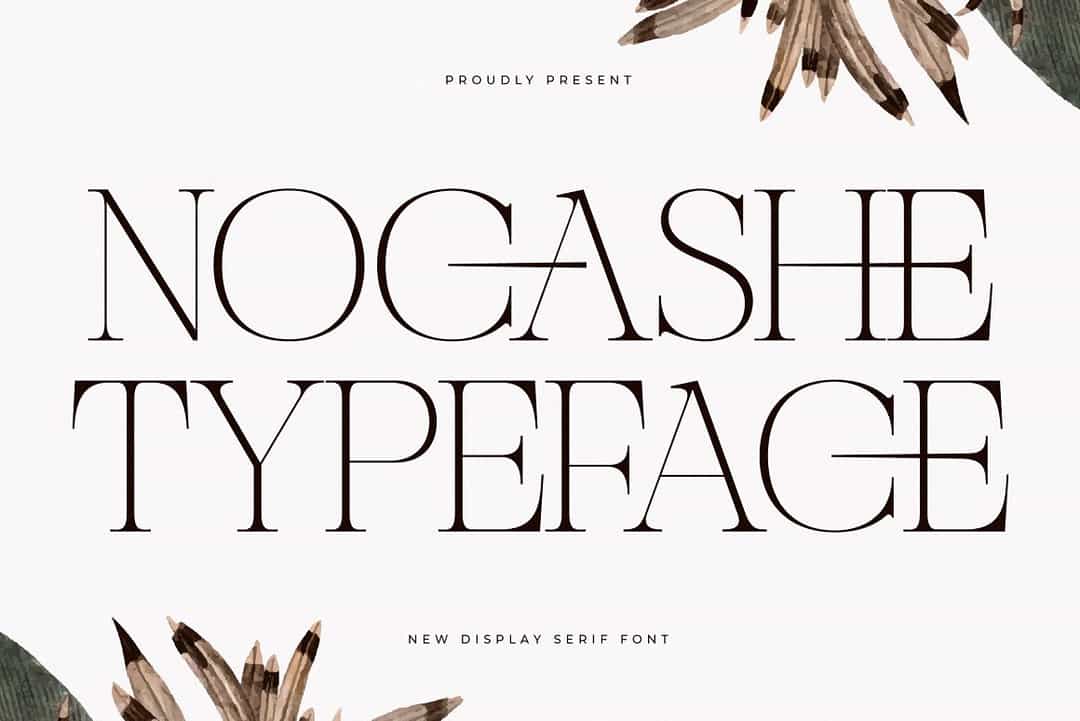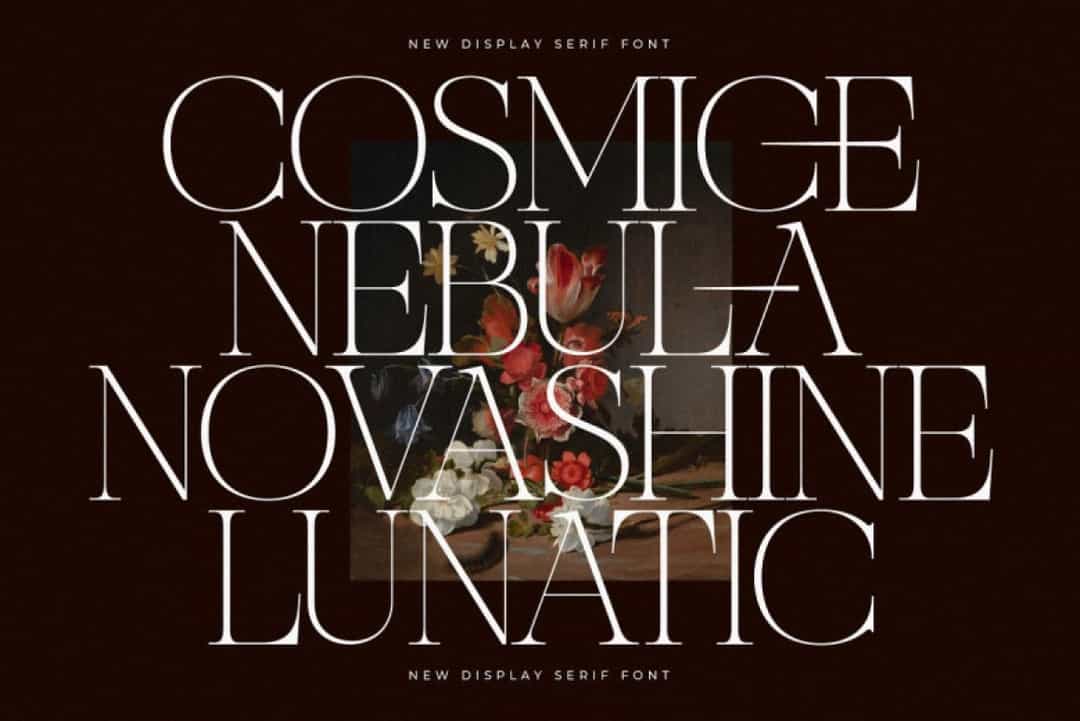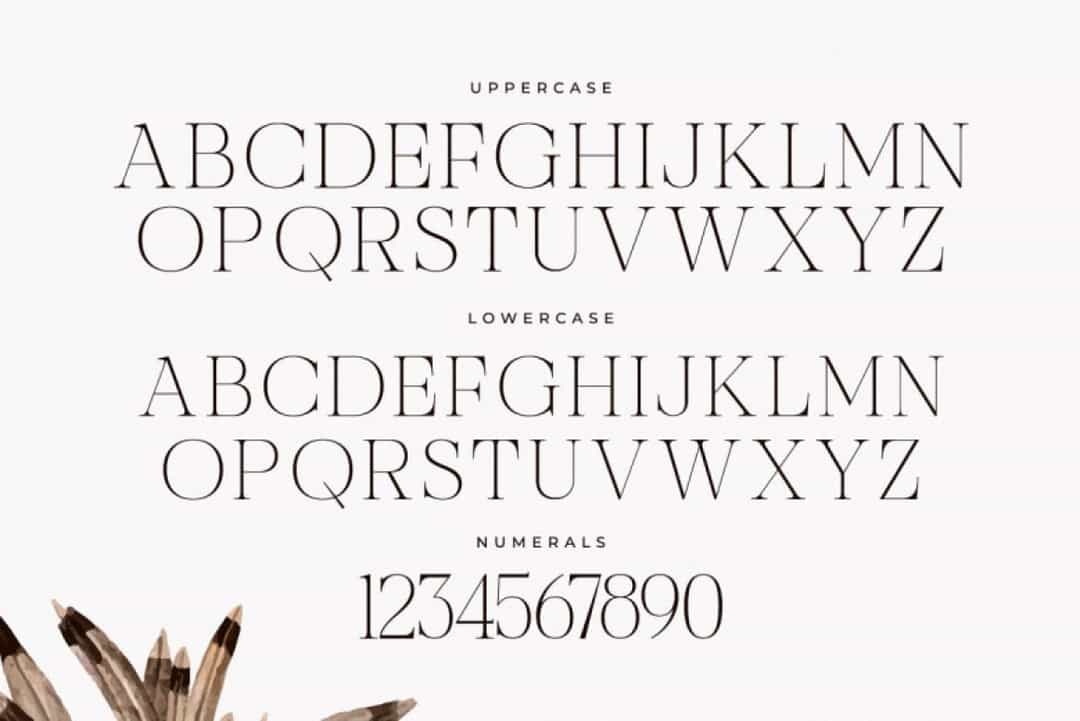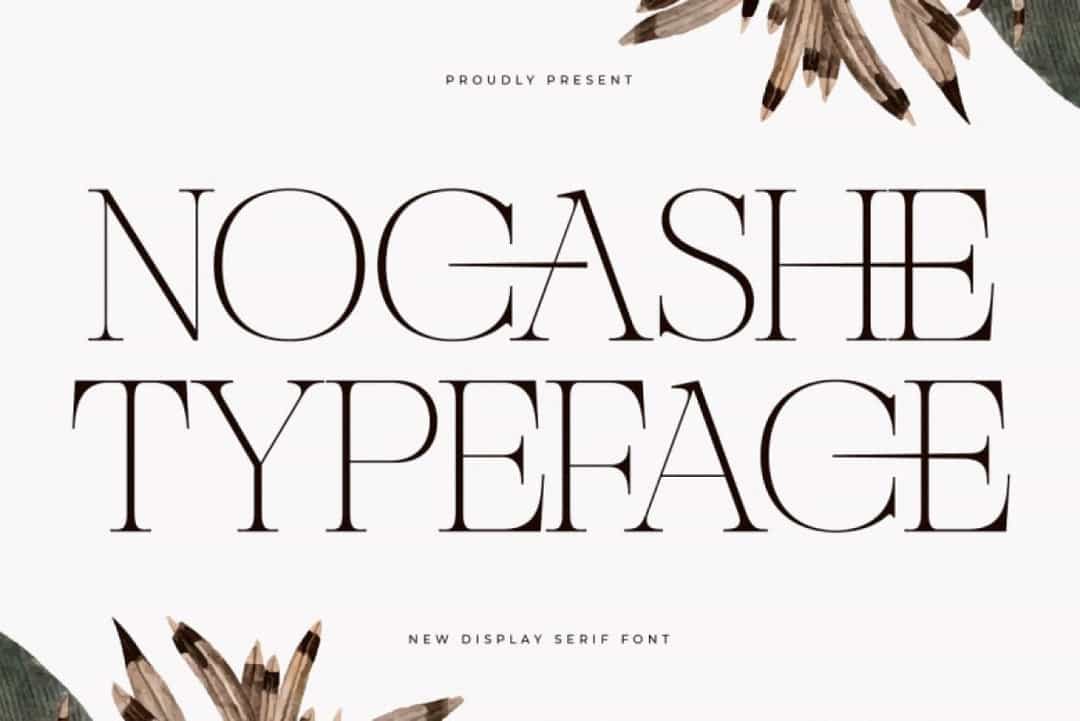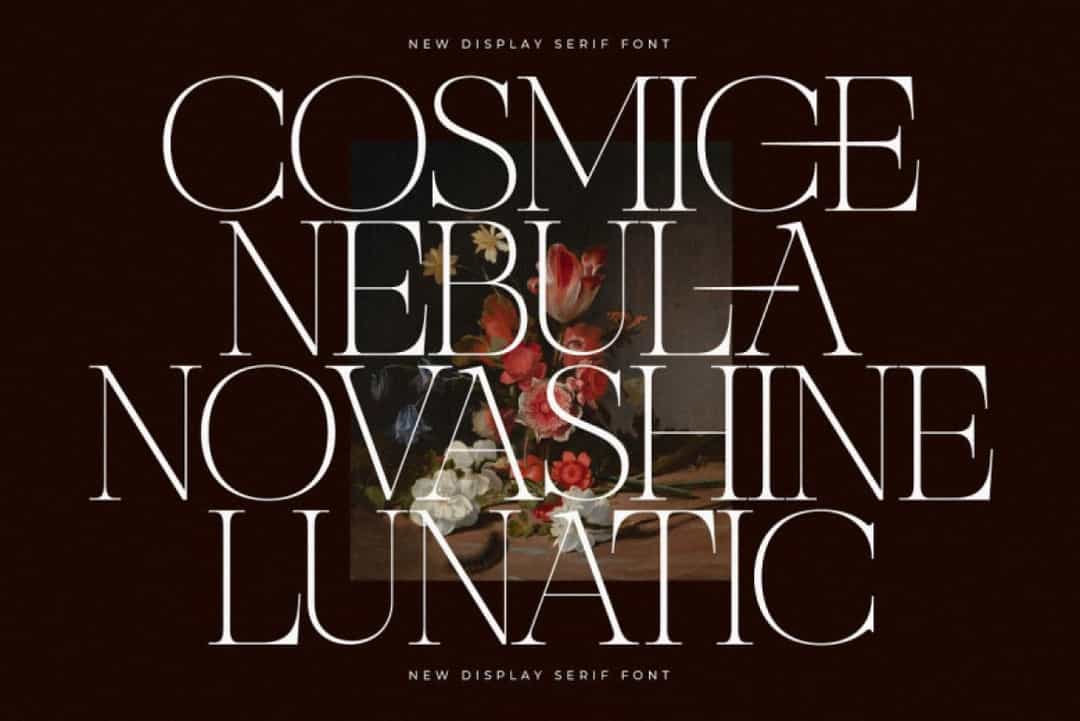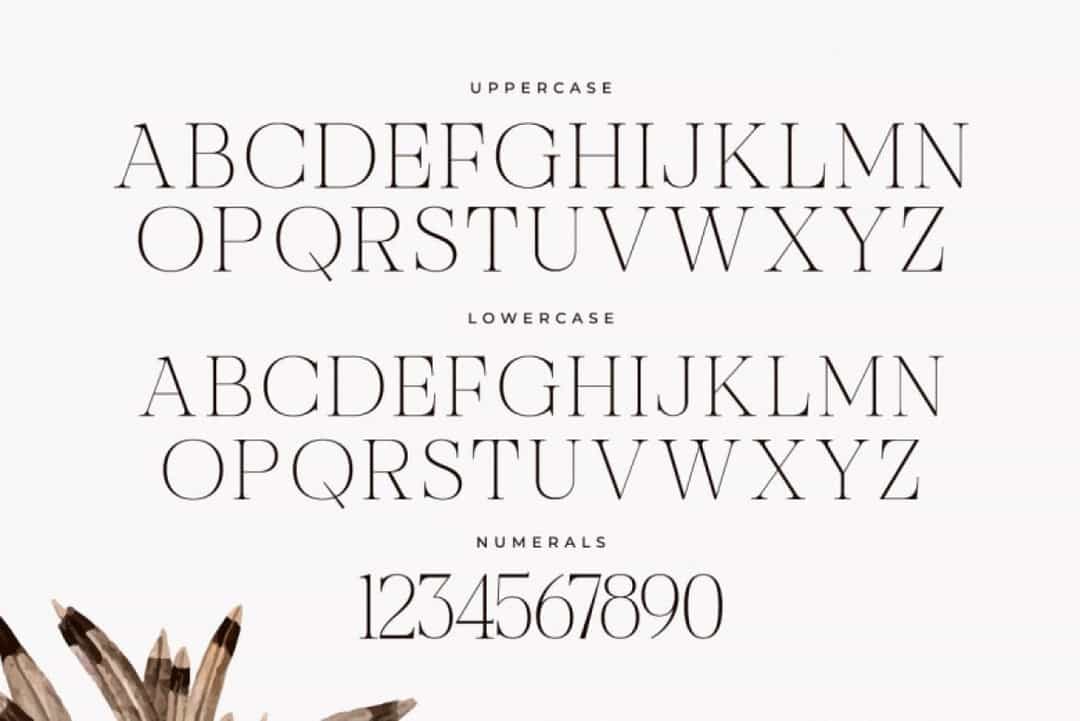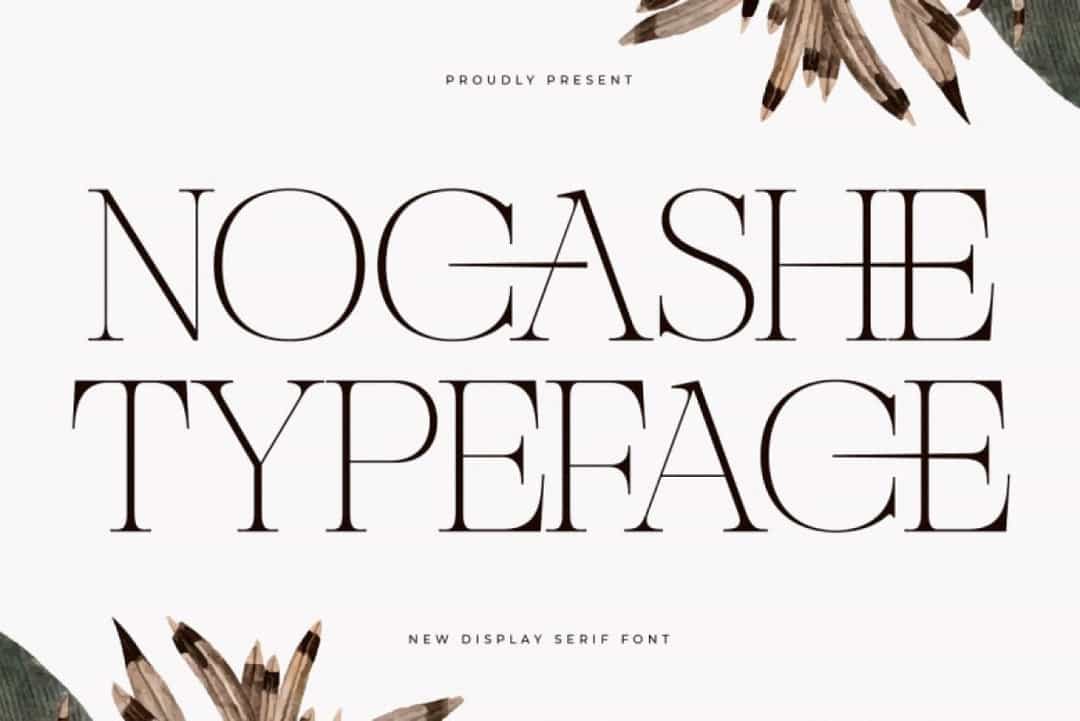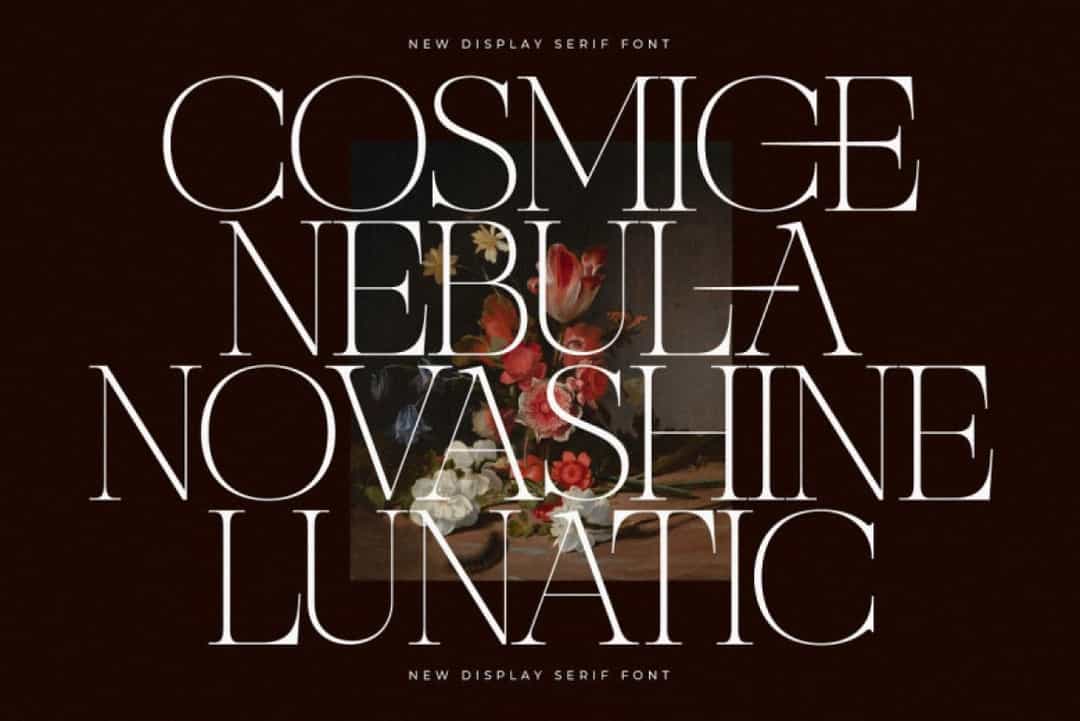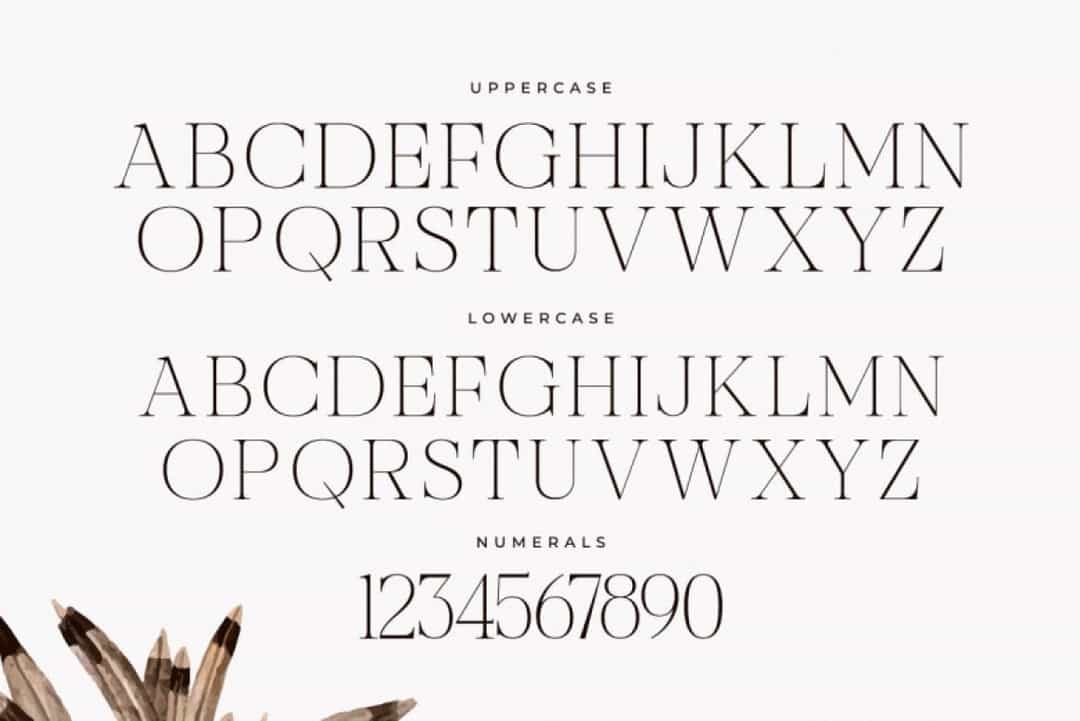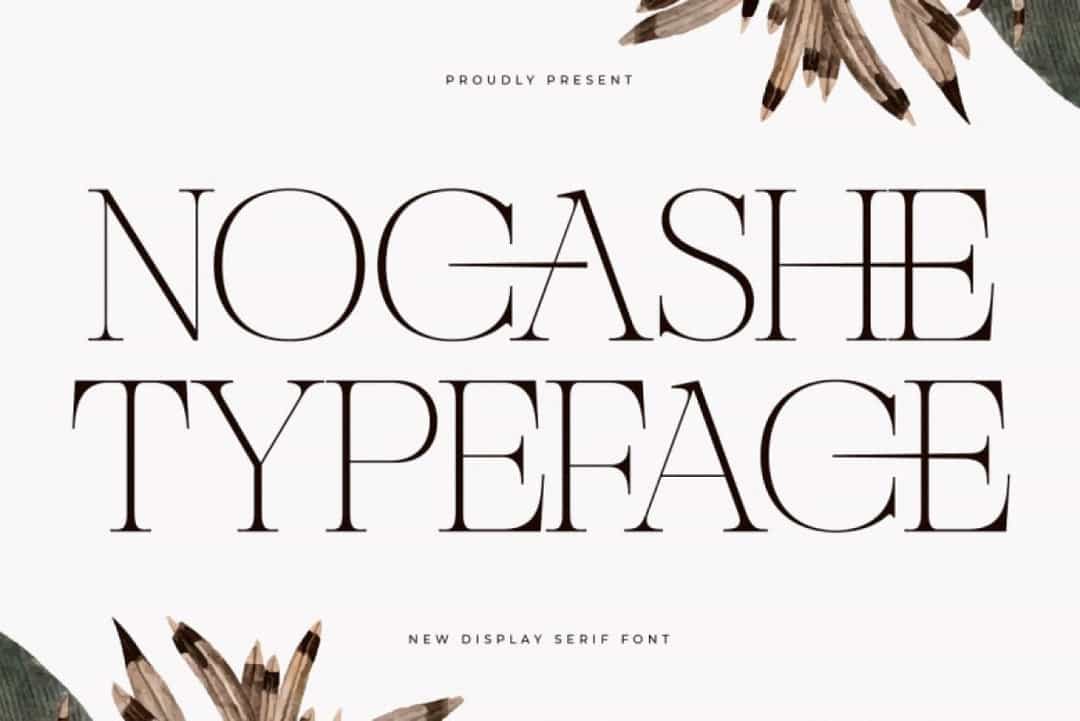
Nocashe is an elegant yet modern serif typeface with its own distinct character and flair, perfect for sophisticated and lavish logos, book and film covers, fashion designs and fashion magazine layouts, letterheads and labels as well as many other applications.